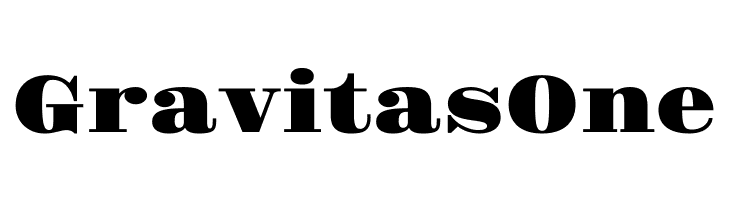
( Fonts by Sorkin Type Co )
A bold, slab serif font with a strong and commanding presence.
A bold, high-contrast typeface with strong, authoritative strokes.